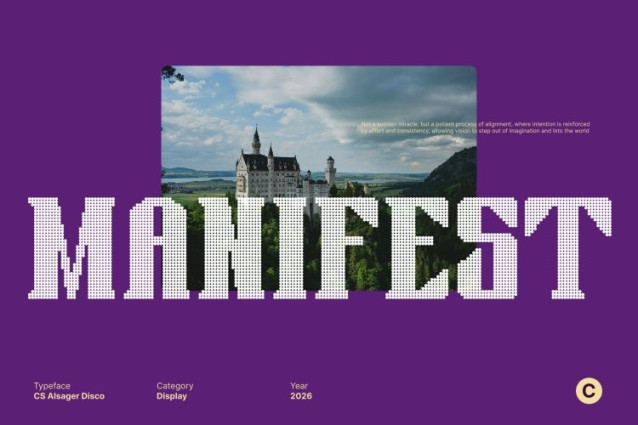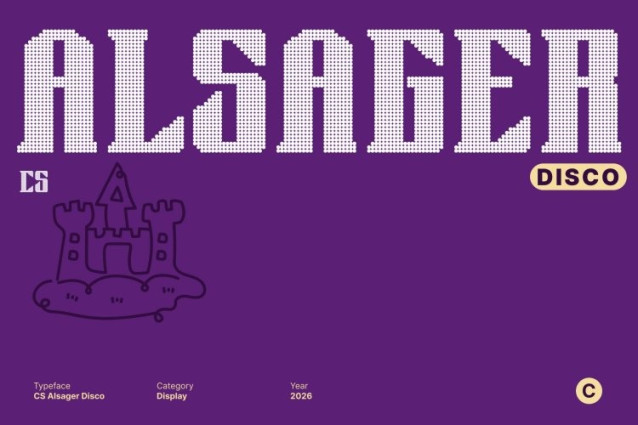
CS Alsager Disco Font
CS Alsager Disco Font This is an industrial display font designed to express strength, control, and technical precision. Its bold construction, sharp serif details, and engineered structure create a powerful visual language that feels mechanical and confident. Rooted in industrial design and futuristic aesthetics, the font commands attention with undeniable authority.
Structured Forms with Disco-Driven Impact
The structured anatomy of this font delivers a solid, authoritative presence through strong vertical strokes, firm serifs, and balanced proportions. Enhanced with disco-inspired energy, the font gains a sense of rhythm and celebration transforming rigid structure into a dynamic, high-impact display style that feels alive and expressive.
Futuristic Precision Meets Glamorous Party Vibe
Blending industrial toughness with futuristic precision, this font introduces a festive, glamorous edge inspired by flashing lights, retro fashion, and dance-floor energy. Clean yet forceful letterforms communicate innovation and efficiency, while the disco influence adds visual excitement and vibrant motion.
Perfect for Modern Branding, Headlines, and Festive Displays
This font excels in modern branding, posters, editorial layouts, and bold headlines. Ideal for tech-forward brands, urban themes, event promotions, and statement visuals, it delivers a memorable typographic presence that feels powerful, energetic, and ready to shine ensuring your designs stand out with confidence and disco-driven flair.